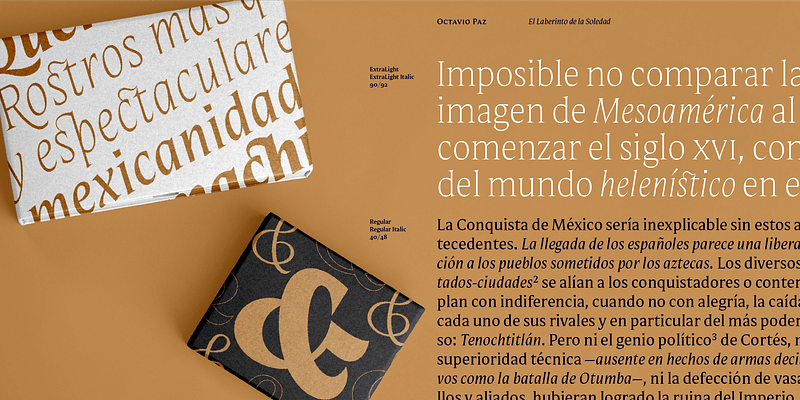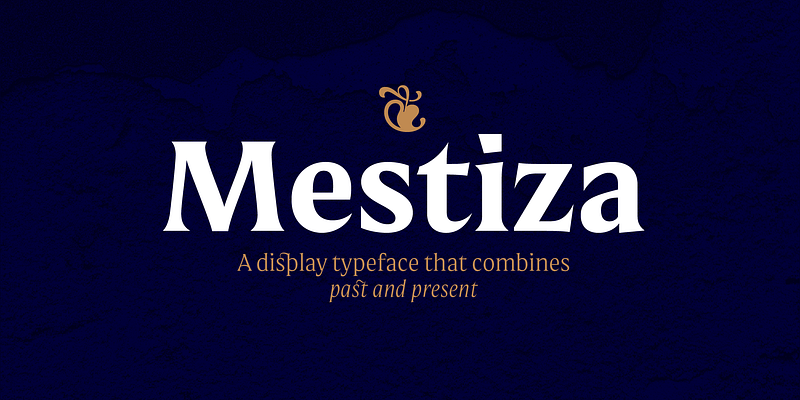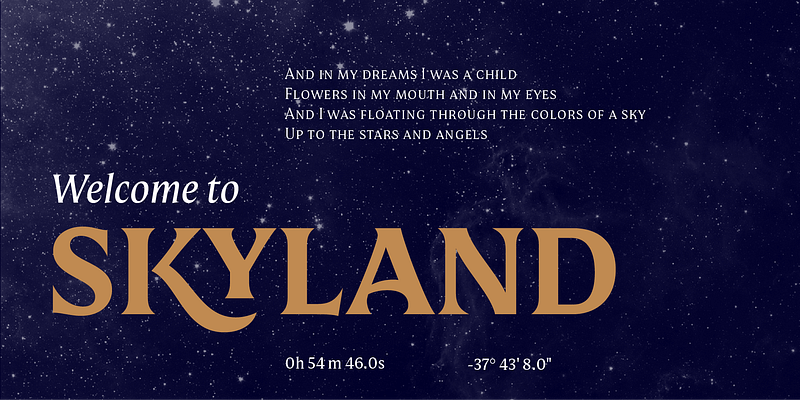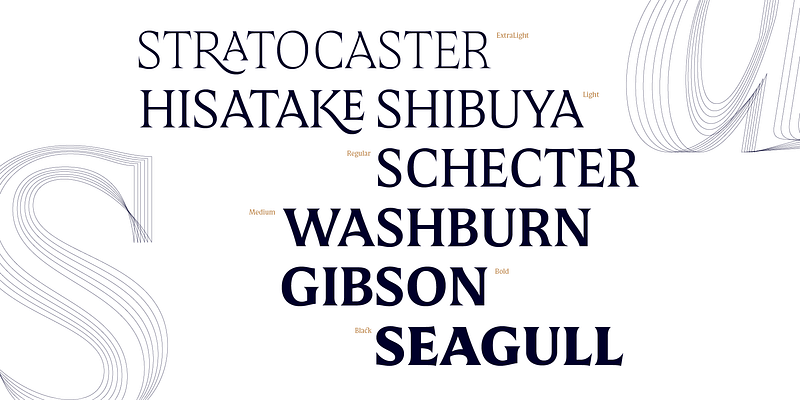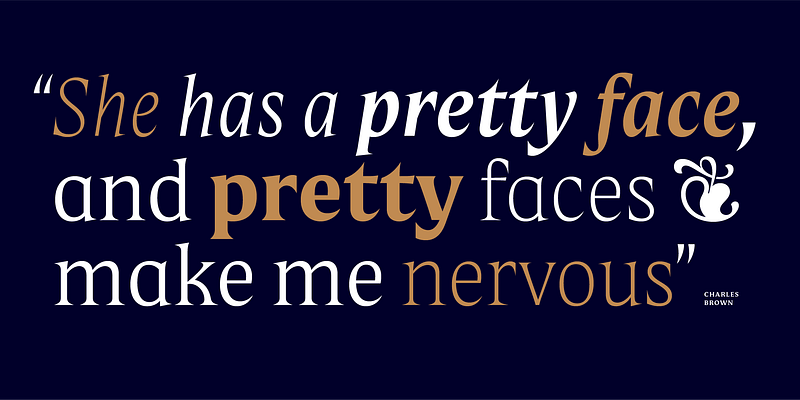
Mestiza is a type family with a living past, which combines its ancient roots bringing the handmade to the contemporary in a spirited mix that evokes elegance and strength. Thanks to its sharp terminals and high contrast, Mestiza acquires a unique personality. It is ideal for headlines and branding projects and allows it to be set in 219 languages of the Latin alphabet, thanks to the more than 700 characters set. Mestiza has 12 variants, six Roman plus Italics including Small Caps, Old-Style numbers, Superiors, Inferiors, Contextual and Discretionary ligatures, Symbols, and some Alternates.